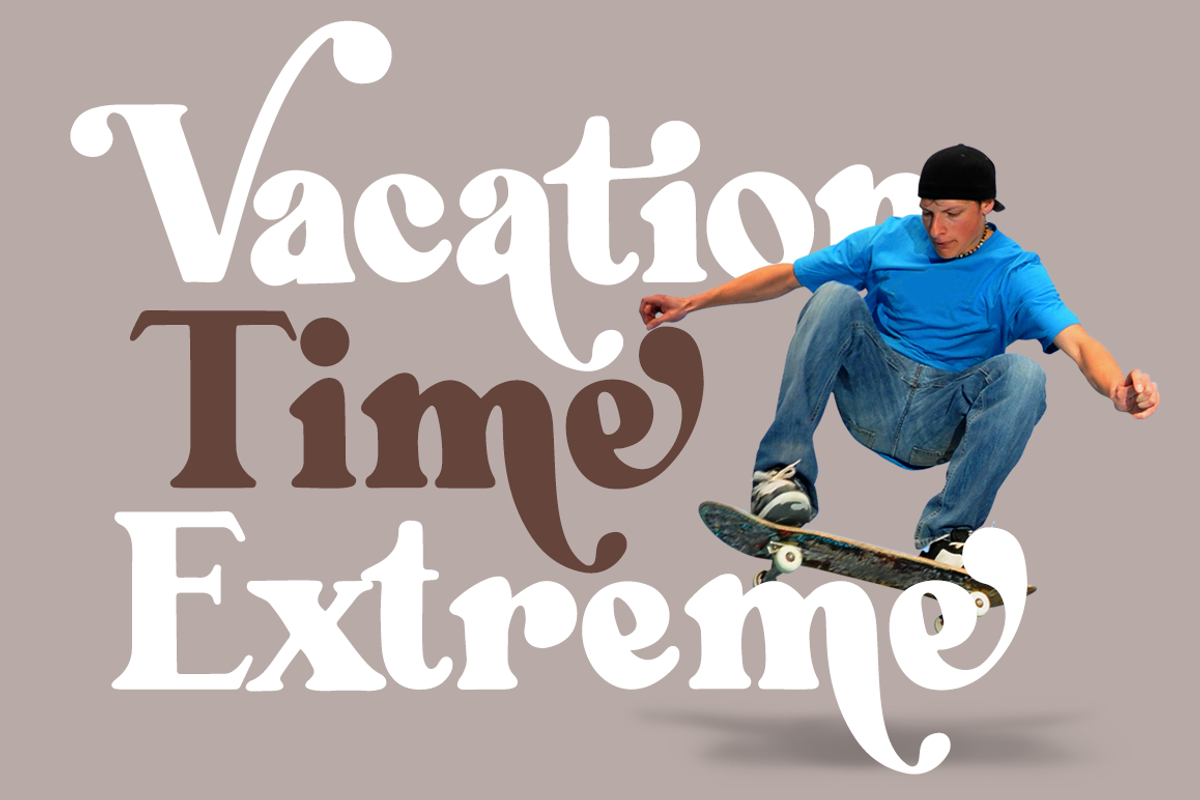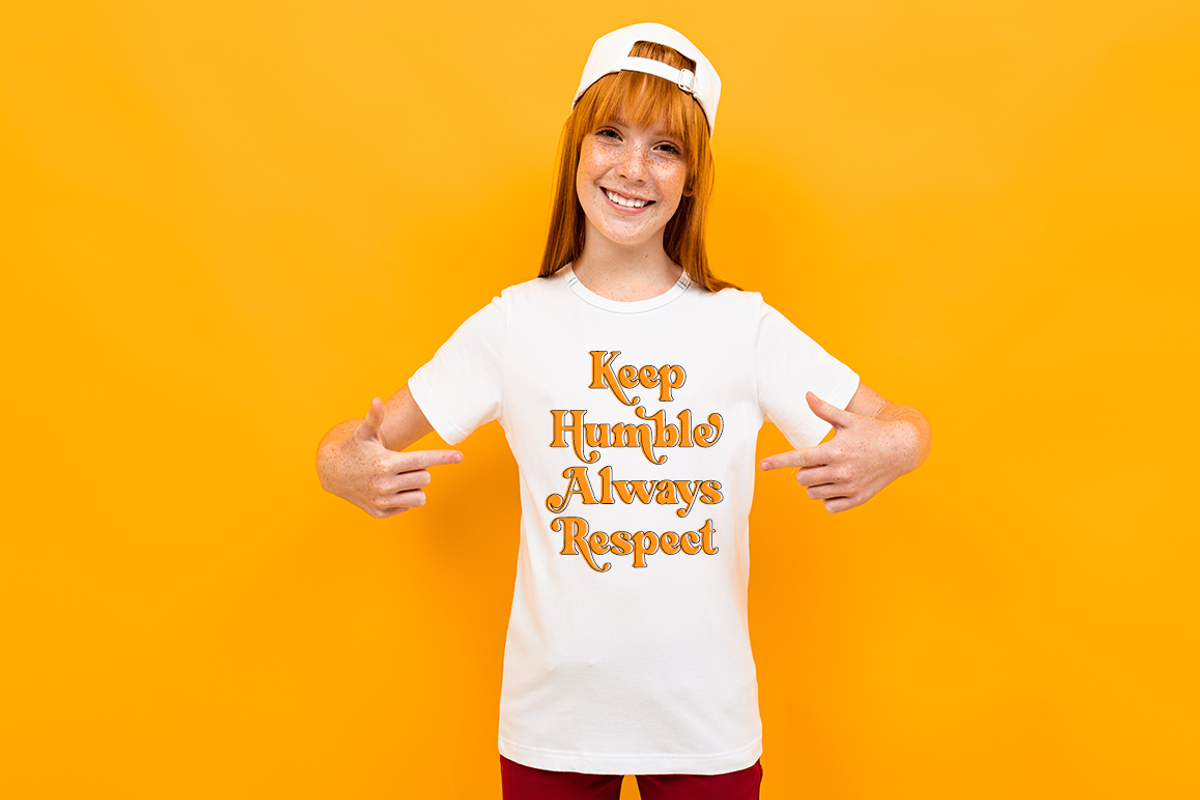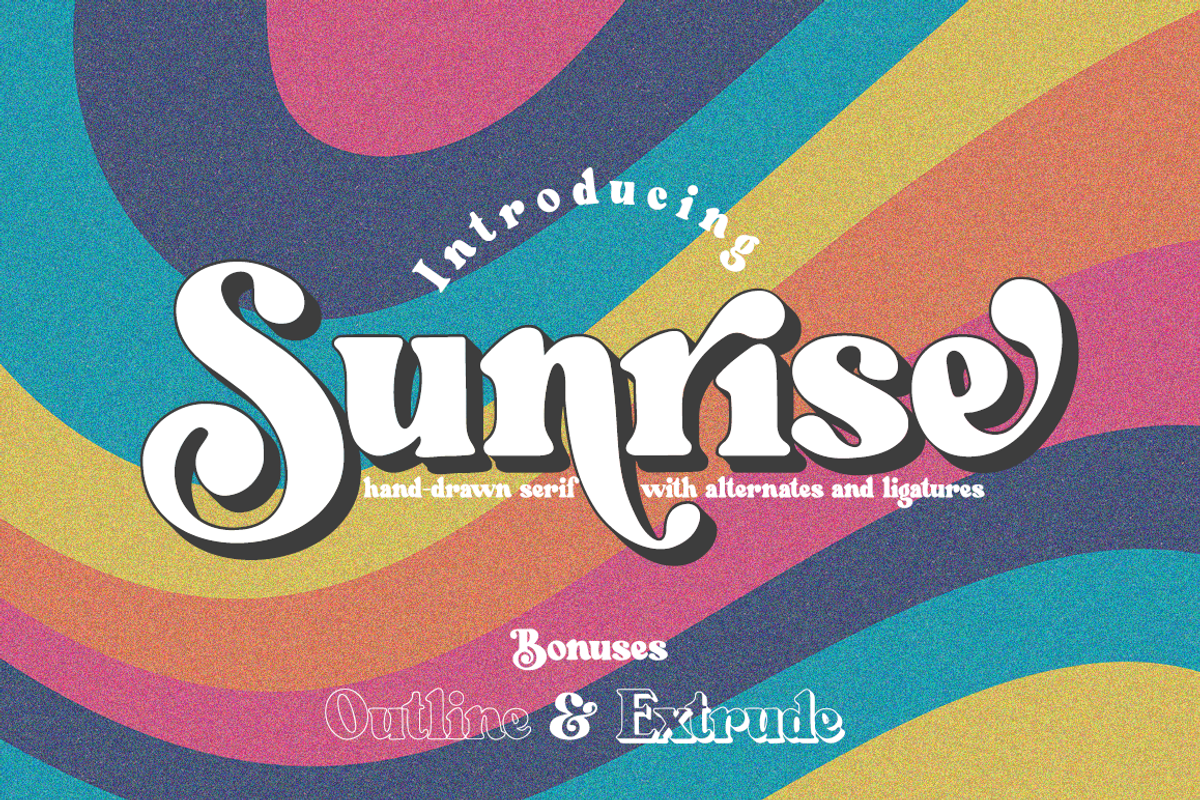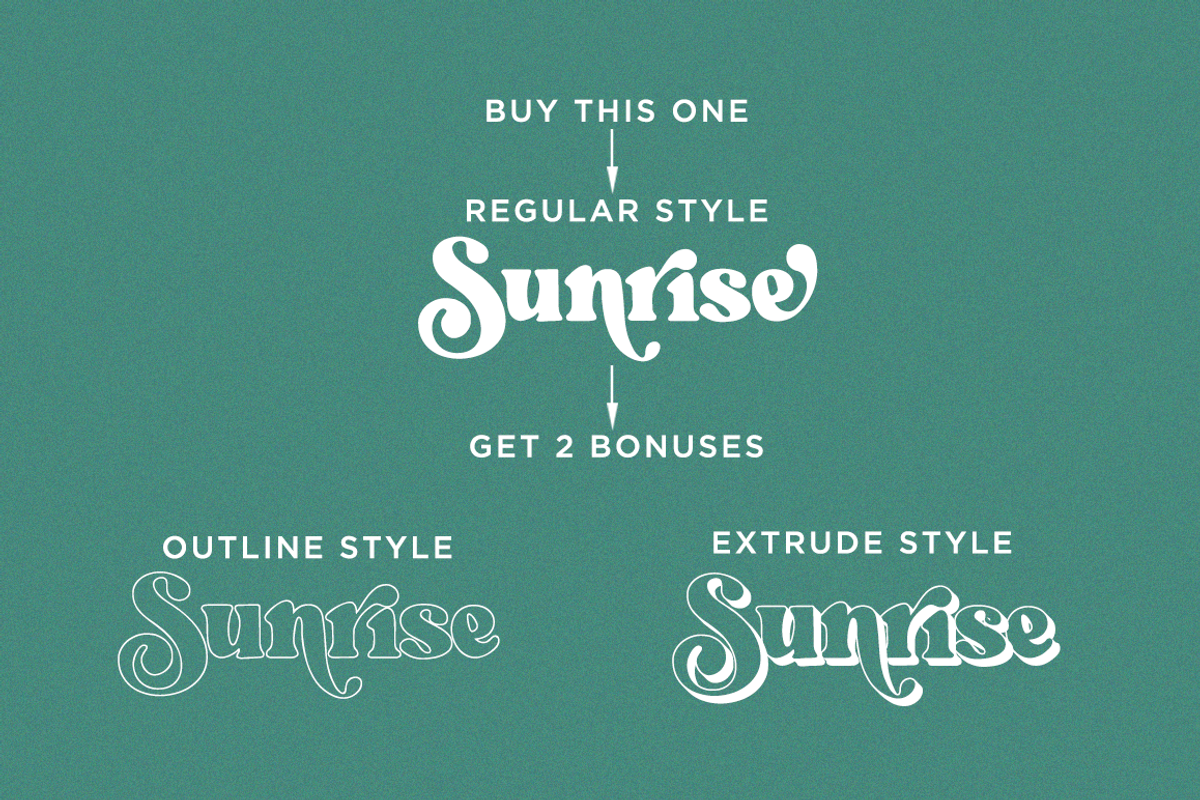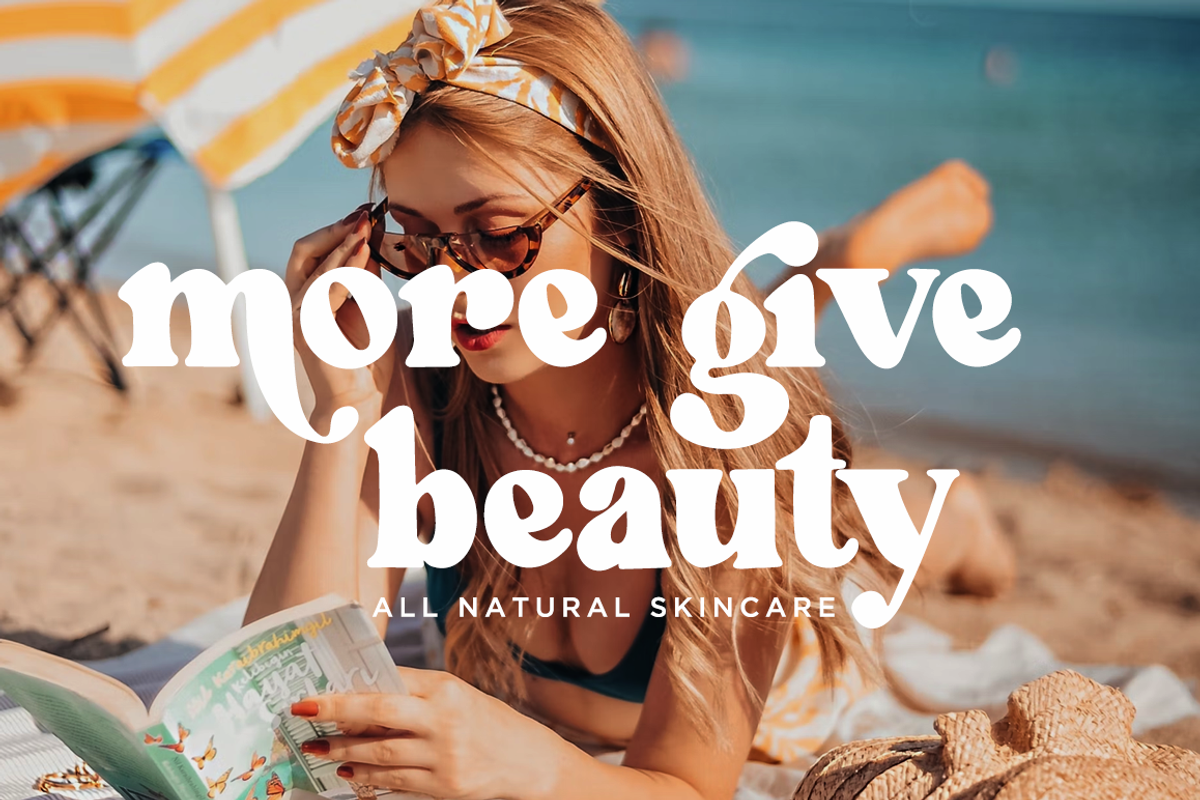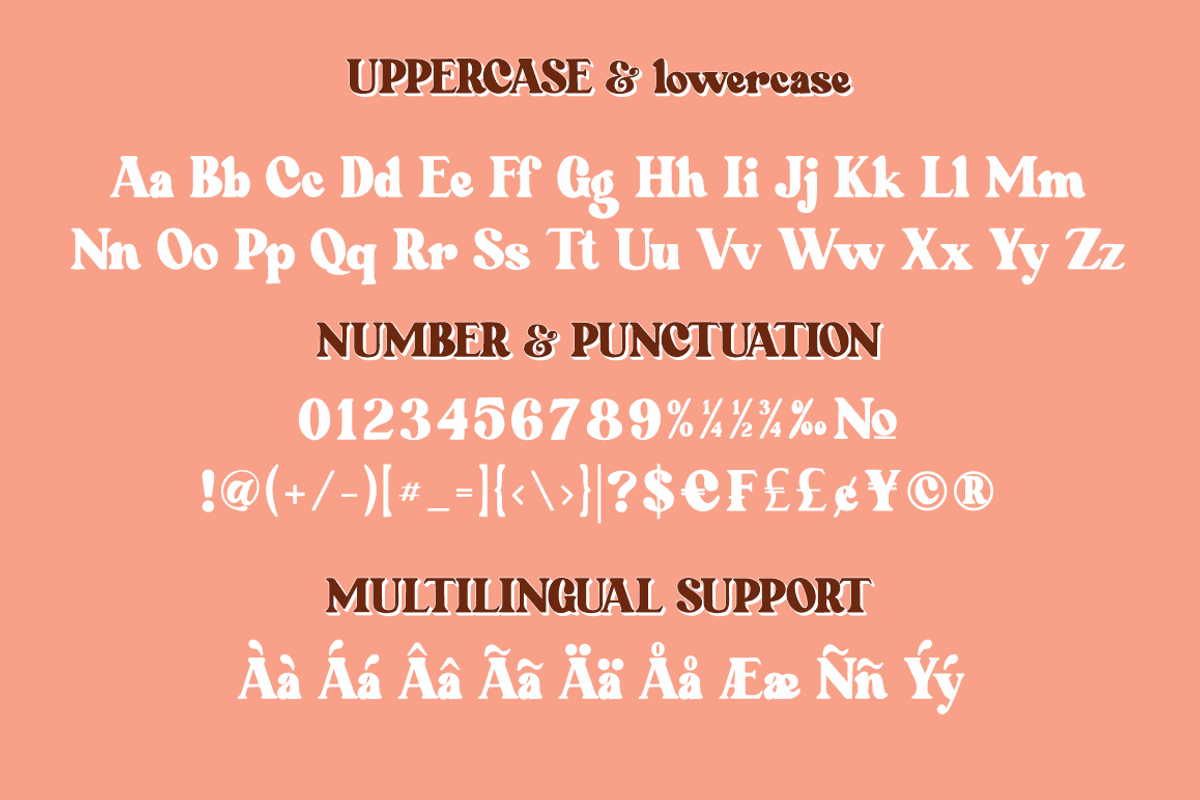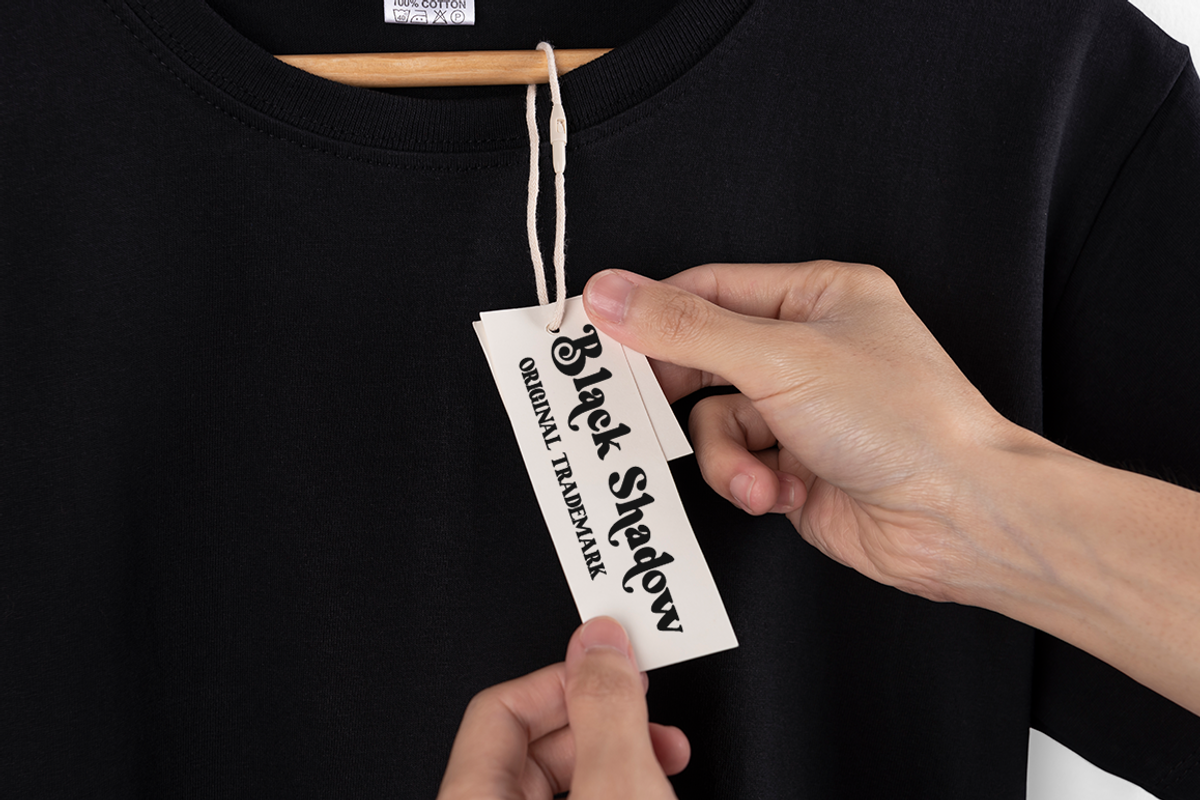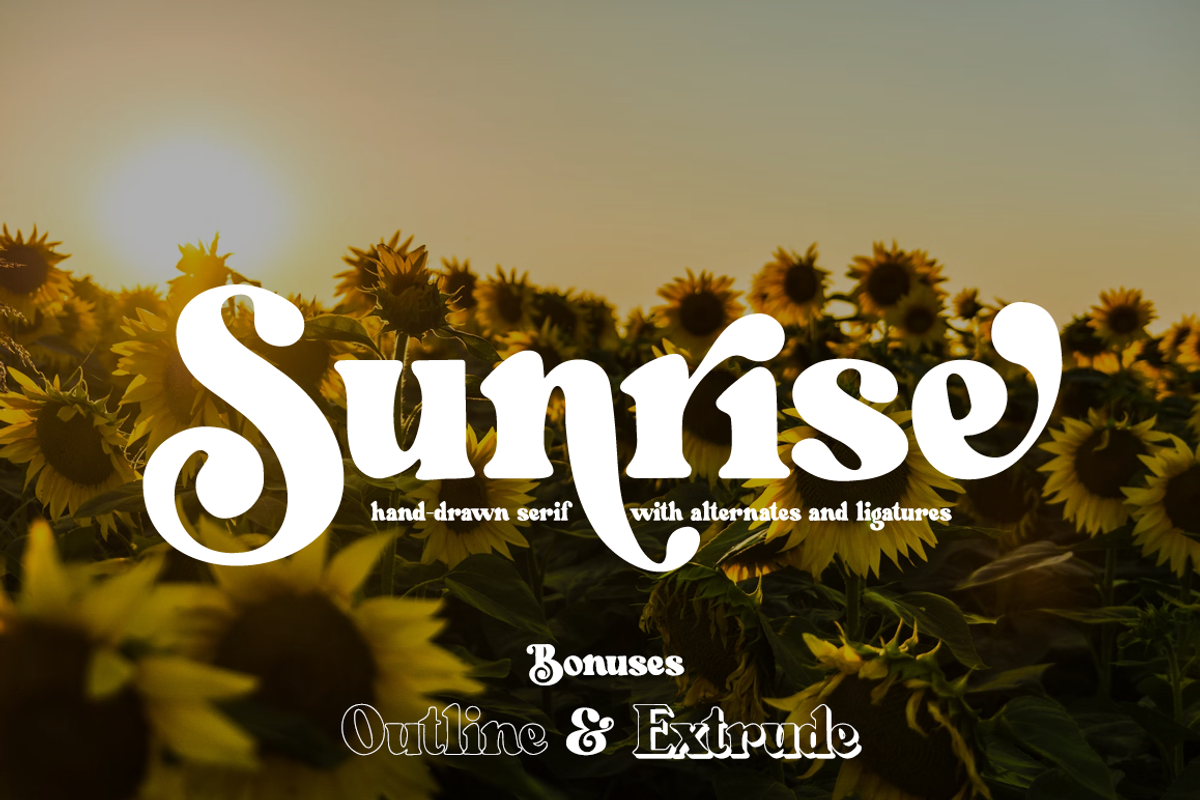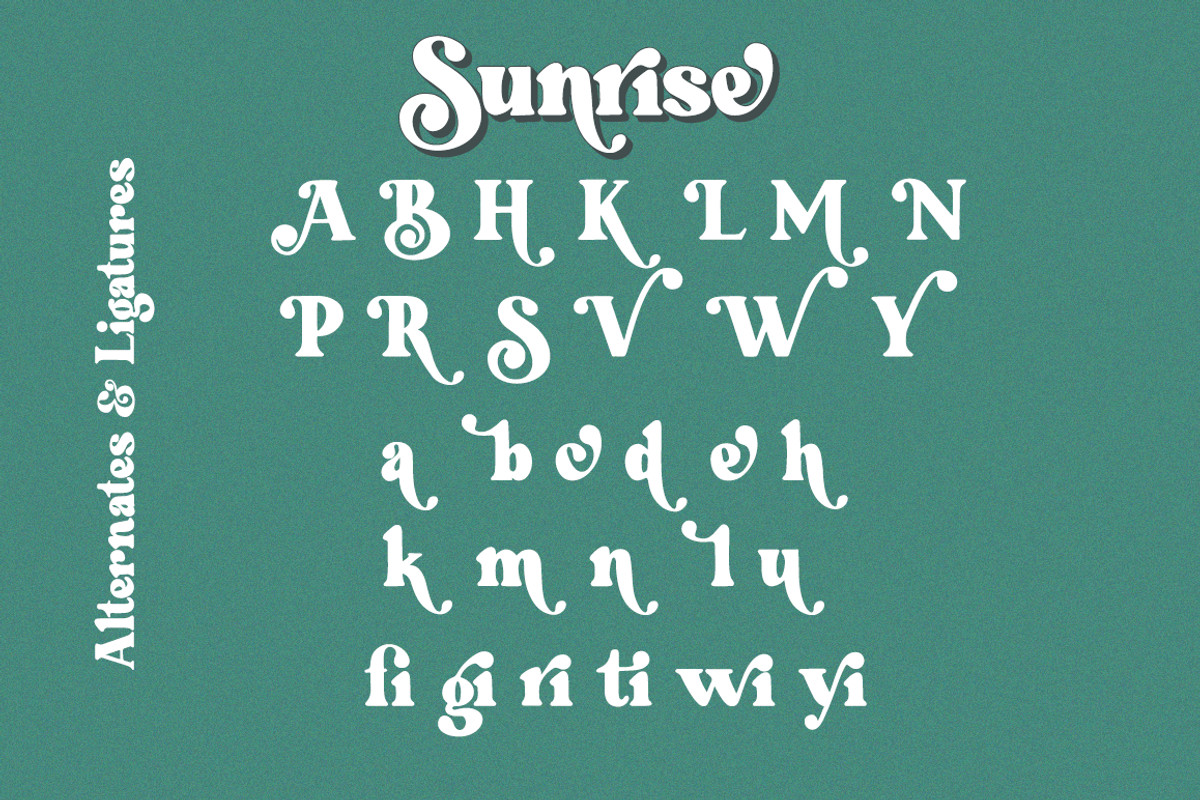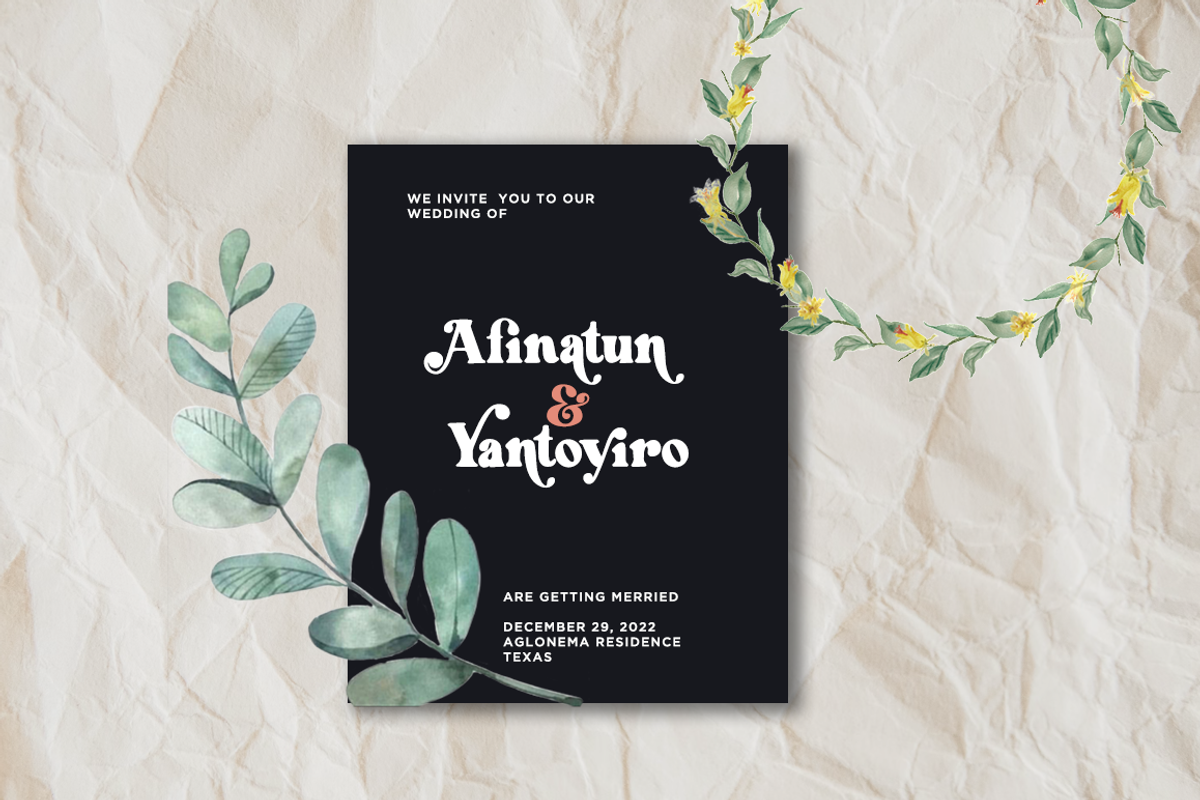
Sunrise - Haksen
Sunrise a serif hand-drawn font with a retro look!
There are three fonts included :
- Sunrise Regular
- Sunrise Outline
- Sunrise Extrude
You can use these three fonts to create your own retro quotes and words!
- Regular version
- Character set A-Z in uppercase and lowercase
- Alternates Character
- Accented Characters
- Multiple Languages Supported
Sunrise is perfect for : shirts, retro designs, procreate, stickers, logos, branding, greeting cards, Cricut projects, posters, magazines, social media, prints and more!